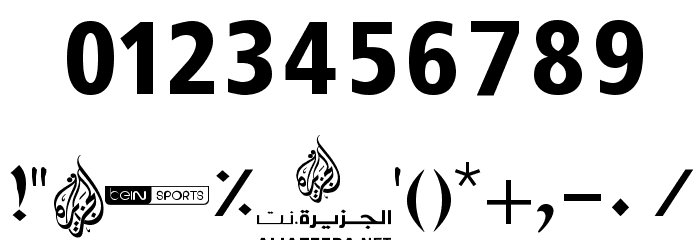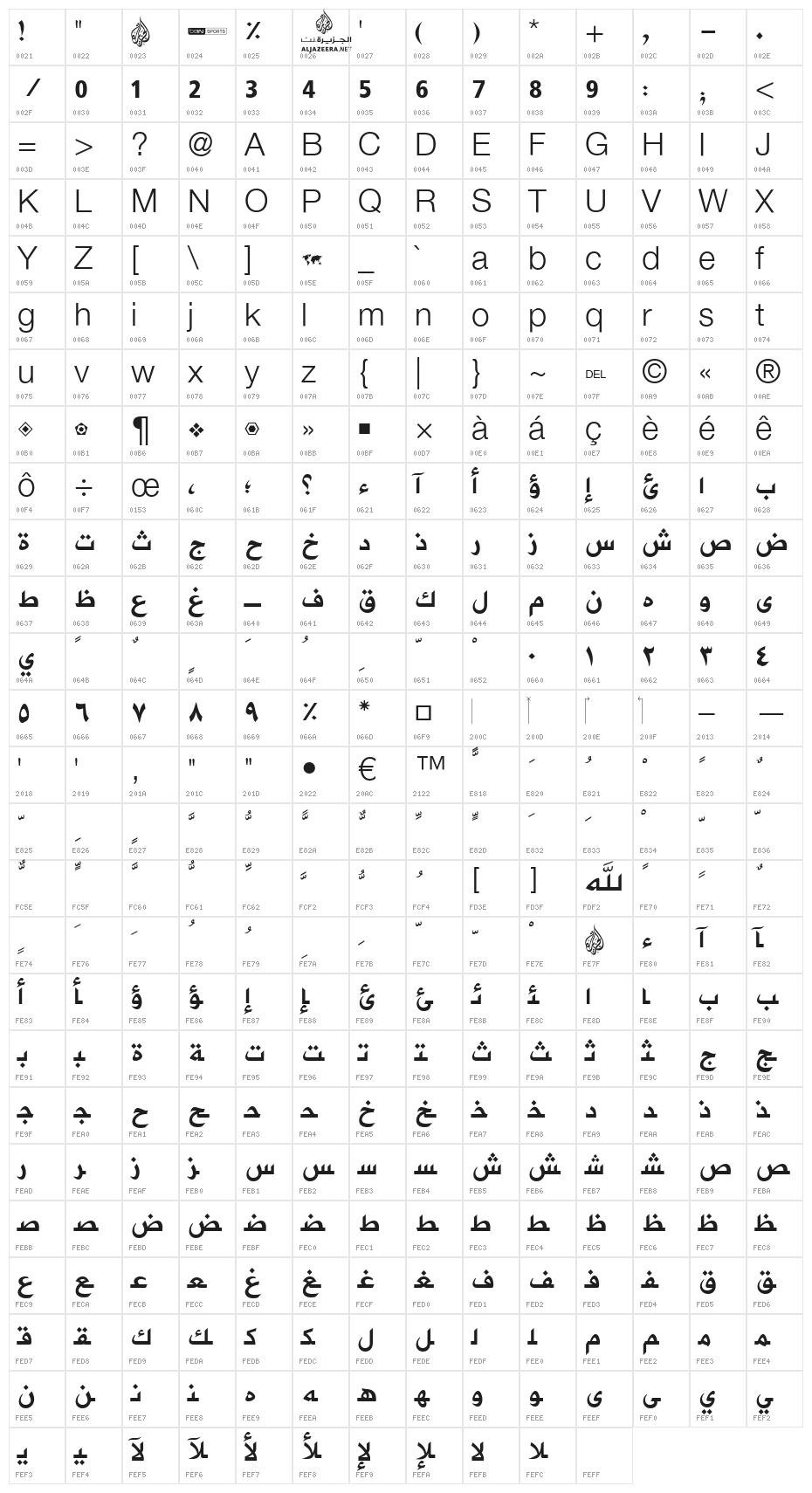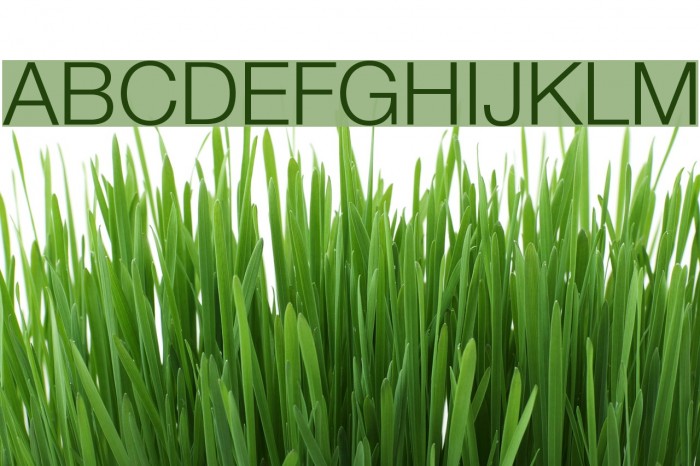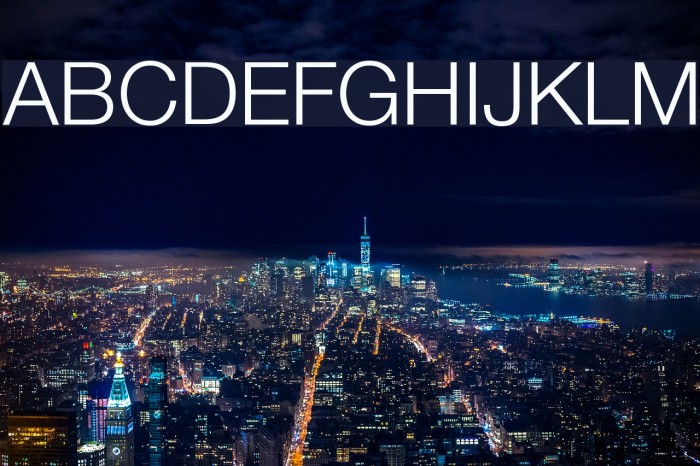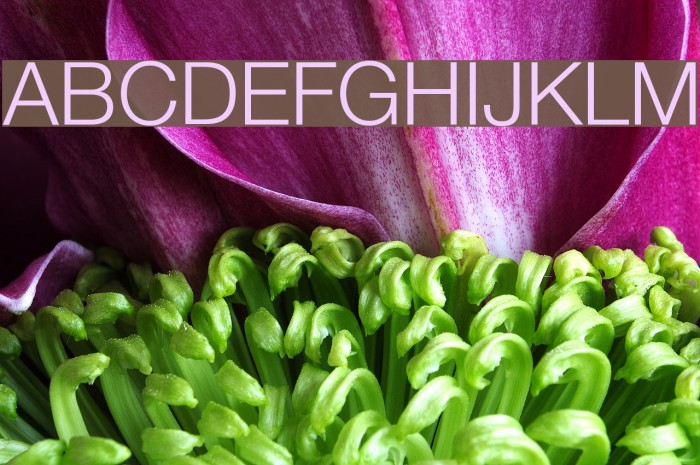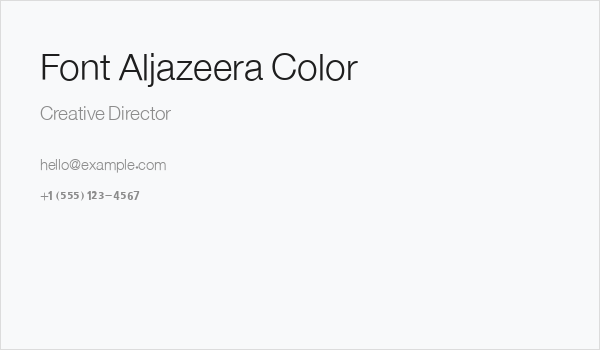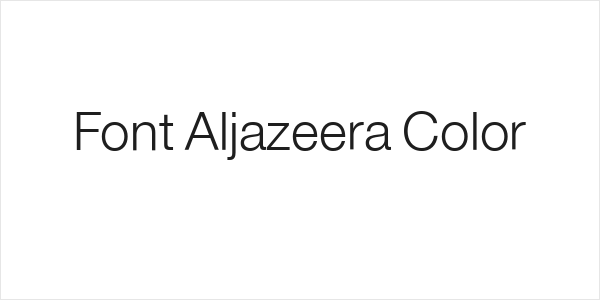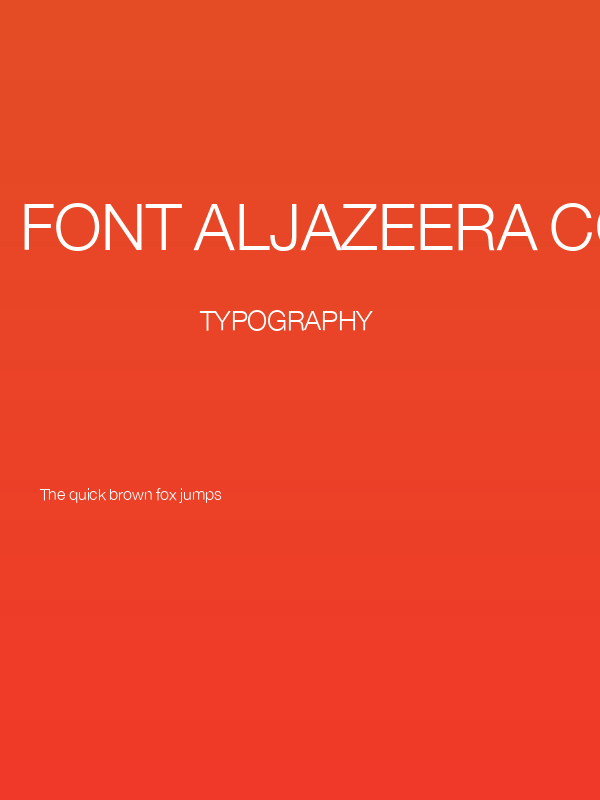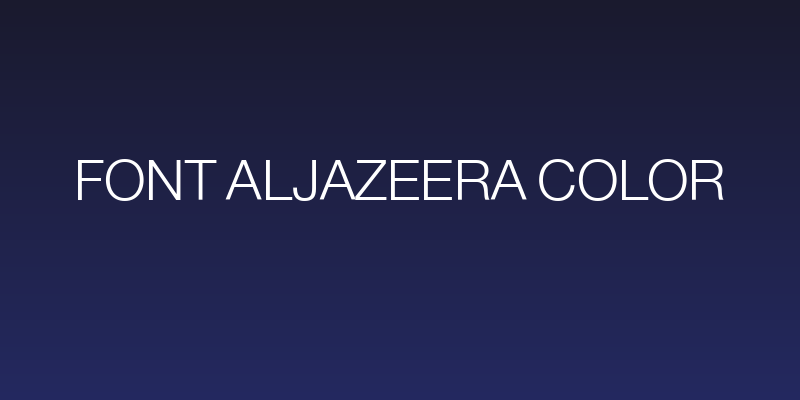
Font Aljazeera Color Font
Font Aljazeera Color Description
This font features a clean and modern sans-serif style with uniform stroke widths, giving it a sleek and professional appearance. The characters are well-proportioned with a consistent baseline, enhancing readability. The uppercase letters are bold and assertive, while the lowercase letters maintain a balanced and approachable look. The numerals are clear and distinct, ensuring easy recognition. Special characters are designed to complement the overall aesthetic, making this font versatile for various applications.